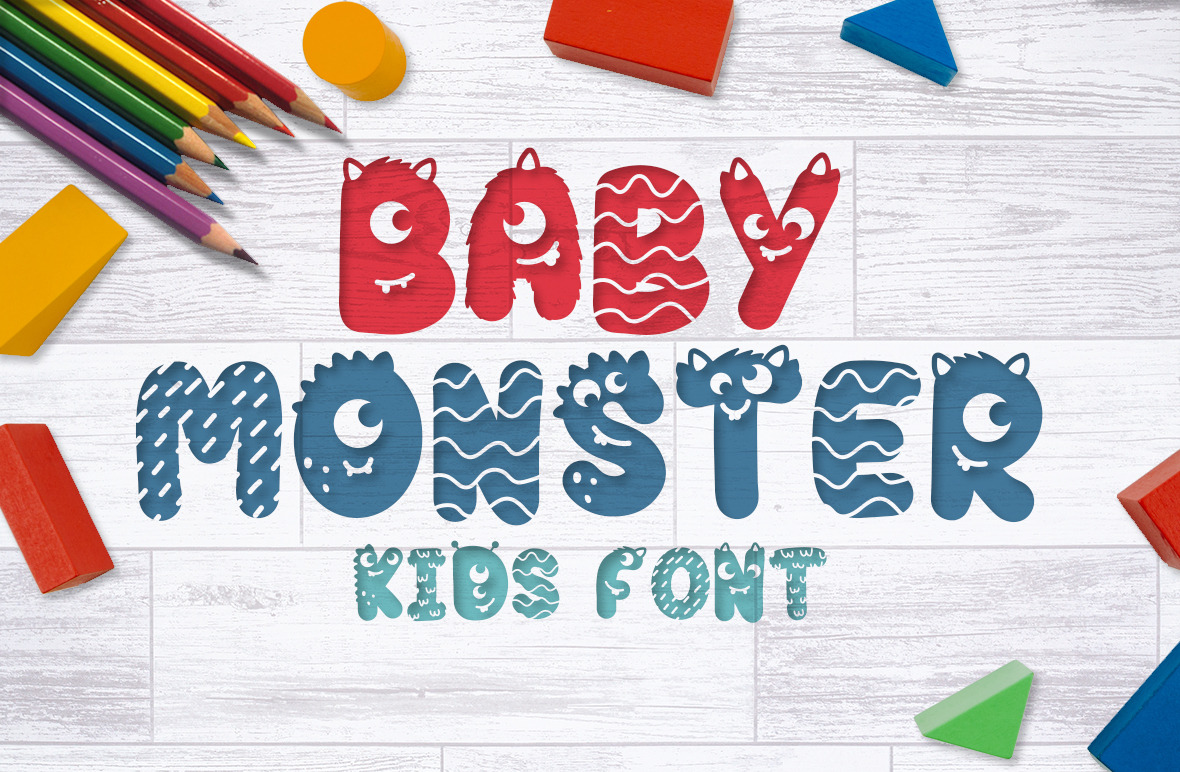
Baby Monster - Kids font
Hey guys, today I present you with the Baby Monster kids font. This fun childish font will give your projects the playful and youthful touch you desire. This beautiful product is perfect to give kid related creations that cute monster feel.